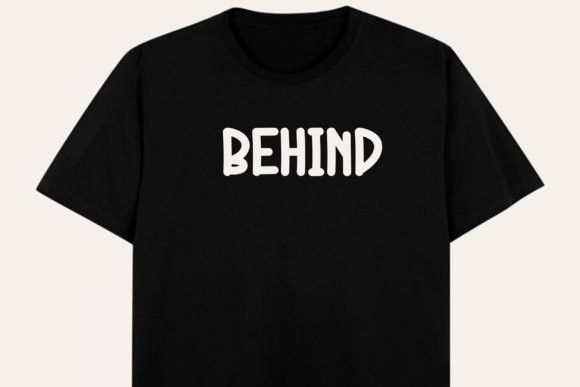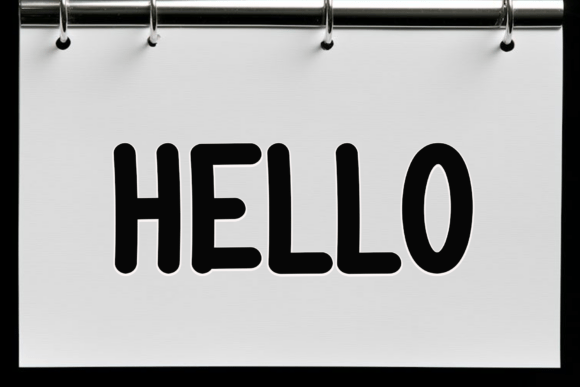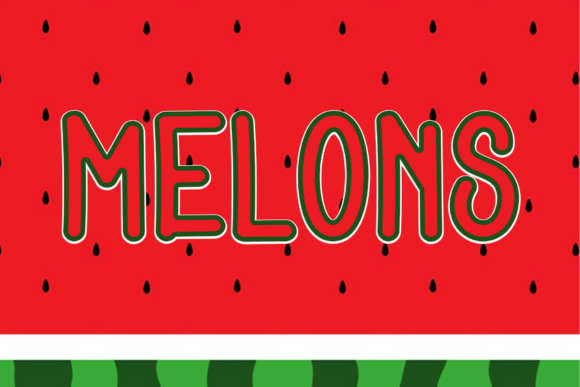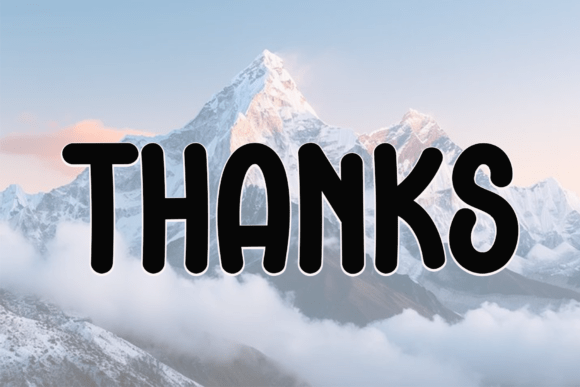
Bingo Manga Font: The Perfect Handwritten Font for Your Creative Projects
Are you looking for a font that can add a personal touch to your designs? Look no further than the Bingo Manga Font. This casual handwritten font is perfect for designers and crafters who want to infuse their work with warmth and personality. In this article, we’ll explore the features and benefits of Bingo Manga Font, and how it can elevate your creative projects.
What is Bingo Manga Font?
Bingo Manga Font is a unique and charming handwritten font that is designed to capture the essence of authentic handwriting. With its smooth strokes, natural curves, and easy-flowing letterforms, this font exudes a modern and approachable feel. It’s perfect for a wide range of design applications, from quotes and invitations to branding and social media posts.
Key Features of Bingo Manga Font
- Smooth Strokes: The font features smooth and fluid strokes that give it a natural and effortless look.
- Natural Curves: The curves in Bingo Manga Font are carefully crafted to create a sense of movement and flow.
- Easy-Flowing Letterforms: The letterforms are designed to flow easily into each other, creating a sense of continuity and harmony.
- Modern and Approachable: The font has a modern and approachable feel that makes it perfect for a wide range of design applications.
Benefits of Using Bingo Manga Font
So, why should you choose Bingo Manga Font for your creative projects? Here are just a few benefits:
- Personal Touch: Bingo Manga Font adds a personal and friendly touch to any design, making it perfect for projects that require a human touch.
- Readability: The font is highly readable, even at small sizes, making it perfect for body text and captions.
- Versatility: Bingo Manga Font is a versatile font that can be used for a wide range of design applications, from print to digital media.
How to Use Bingo Manga Font
Using Bingo Manga Font is easy. Here are a few tips to get you started:
- Pair it with Other Fonts: Bingo Manga Font pairs well with other fonts, so feel free to experiment with different combinations.
- Use it for Headings and Titles: The font is perfect for headings and titles, where you want to make a bold statement.
- Add it to Your Social Media Posts: Bingo Manga Font is perfect for social media posts, where you want to add a personal touch to your updates.
Design Applications for Bingo Manga Font
Bingo Manga Font is perfect for a wide range of design applications, including:
- Quotes: Use Bingo Manga Font to create inspiring and motivational quotes that will resonate with your audience.
- Invitations: The font is perfect for invitations, where you want to add a personal touch to your event.
- Branding: Bingo Manga Font can be used for branding, where you want to create a friendly and approachable image.
- Social Media Posts: The font is perfect for social media posts, where you want to add a personal touch to your updates.
In conclusion, Bingo Manga Font is a unique and charming handwritten font that is perfect for designers and crafters who want to add a personal touch to their work. With its smooth strokes, natural curves, and easy-flowing letterforms, this font exudes a modern and approachable feel. Whether you’re creating quotes, invitations, branding, or social media posts, Bingo Manga Font is the perfect choice. So, why not give it a try and see how it can elevate your creative projects?